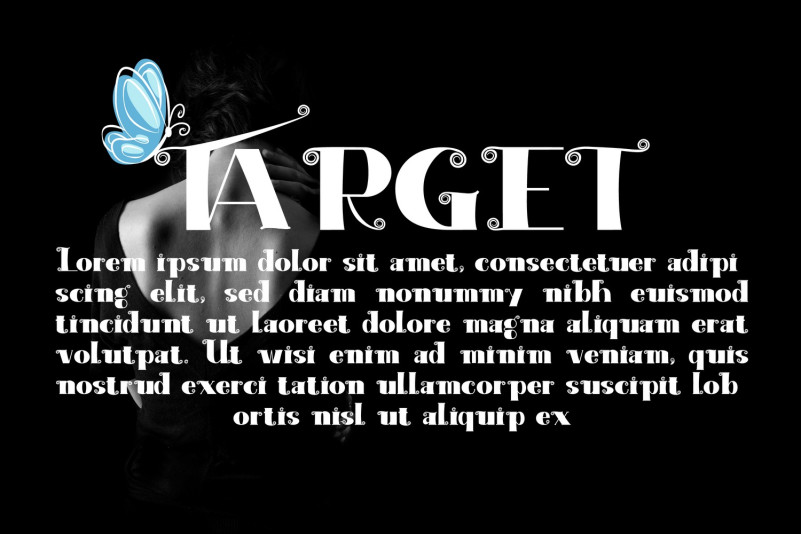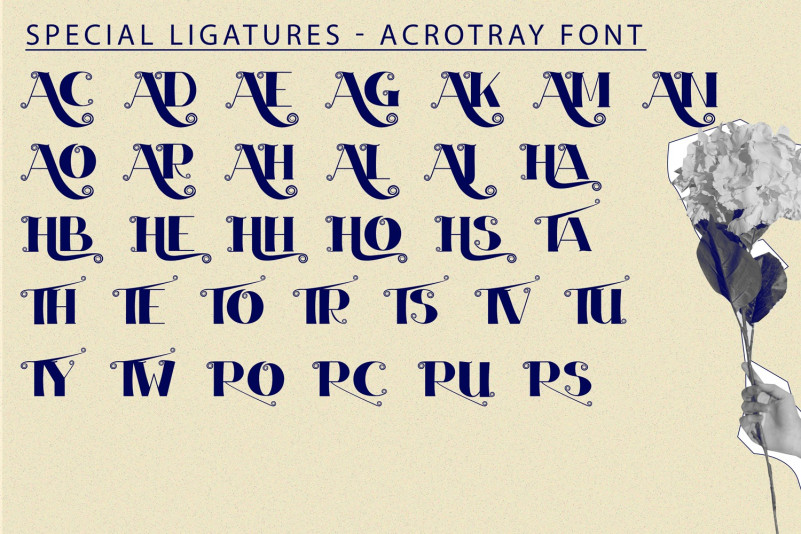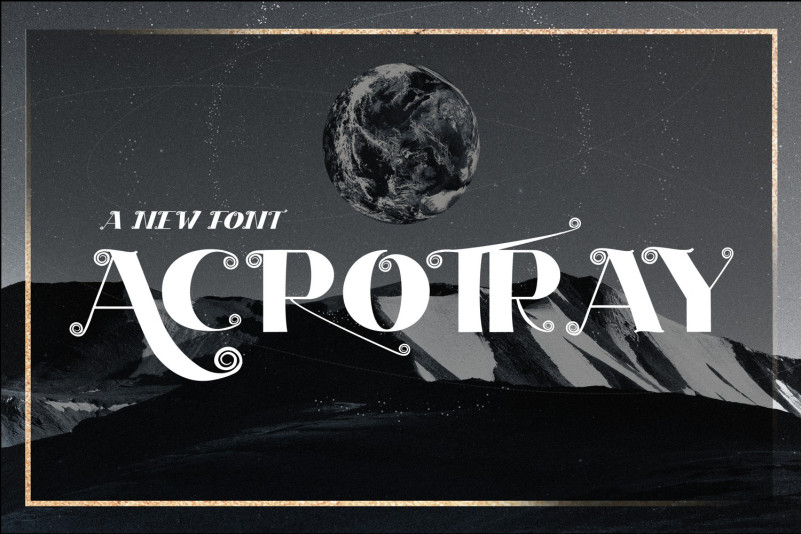
Acrotray Font
ACROTRAY Font is a highly stylized serif font that features elegant looping details in the uppercase characters. This makes it a perfect choice for creating branding and logo designs with it’s huge selection of custom ligatures. Trendy, elegant, luxury, retro & modern style serif font for your new fancy projects. Lot of ligatures will help you to create unique and original logo design or website header! Enjoy 🙂
To make it look more unique, here we prepared some ligatures:
AC AD AE AG AK AM AN AO AR AH AI AJ HA HB HE HH HO HS TA TH TE TO TR TS TV TU TY TW RO RC RU RS…